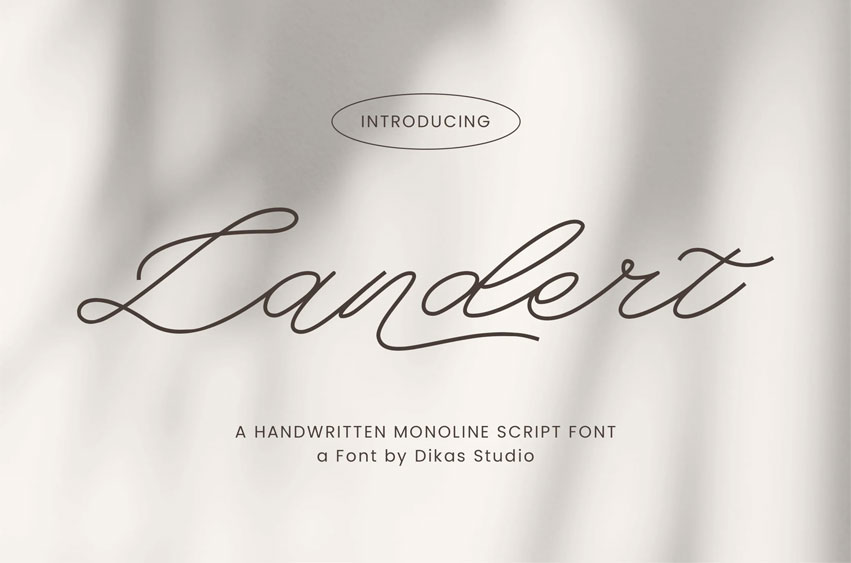
Landert Font is a graceful monoline script font with a natural signature style.
Designed with smooth, flowing strokes and flexible curves, it captures the beauty of authentic handwriting while maintaining a clean and elegant look.